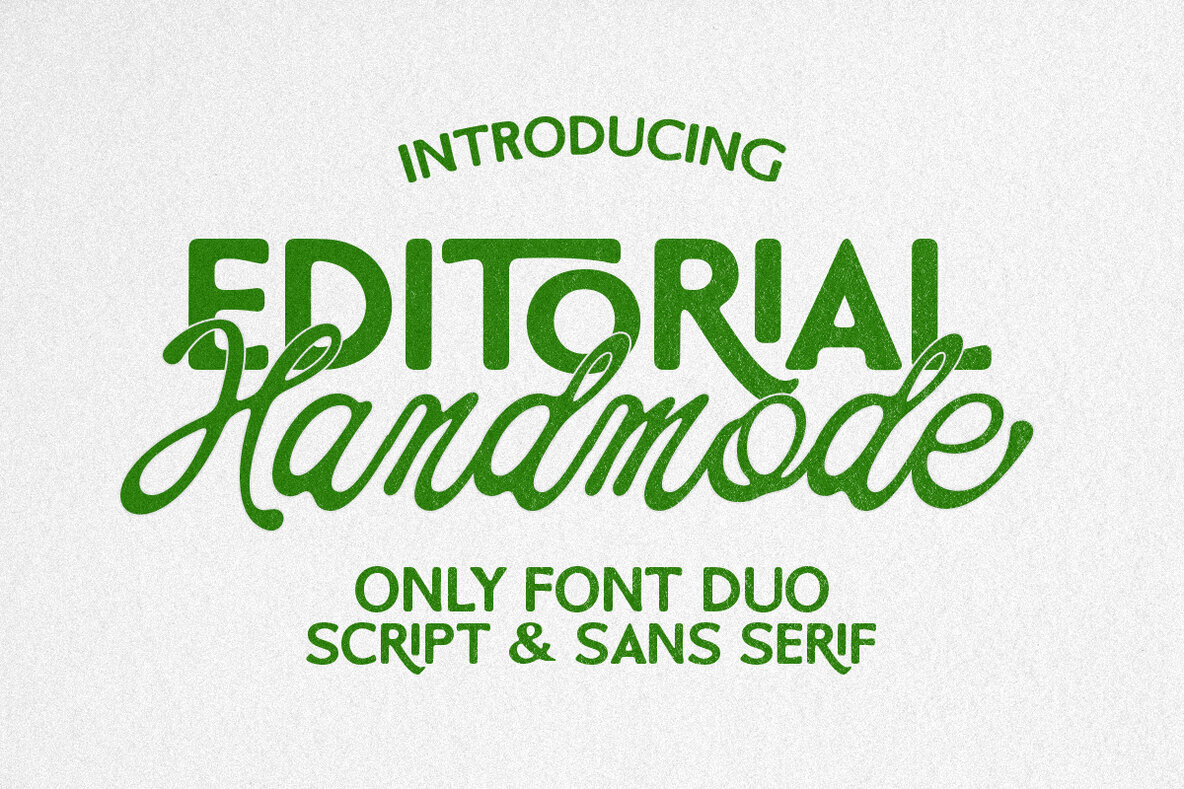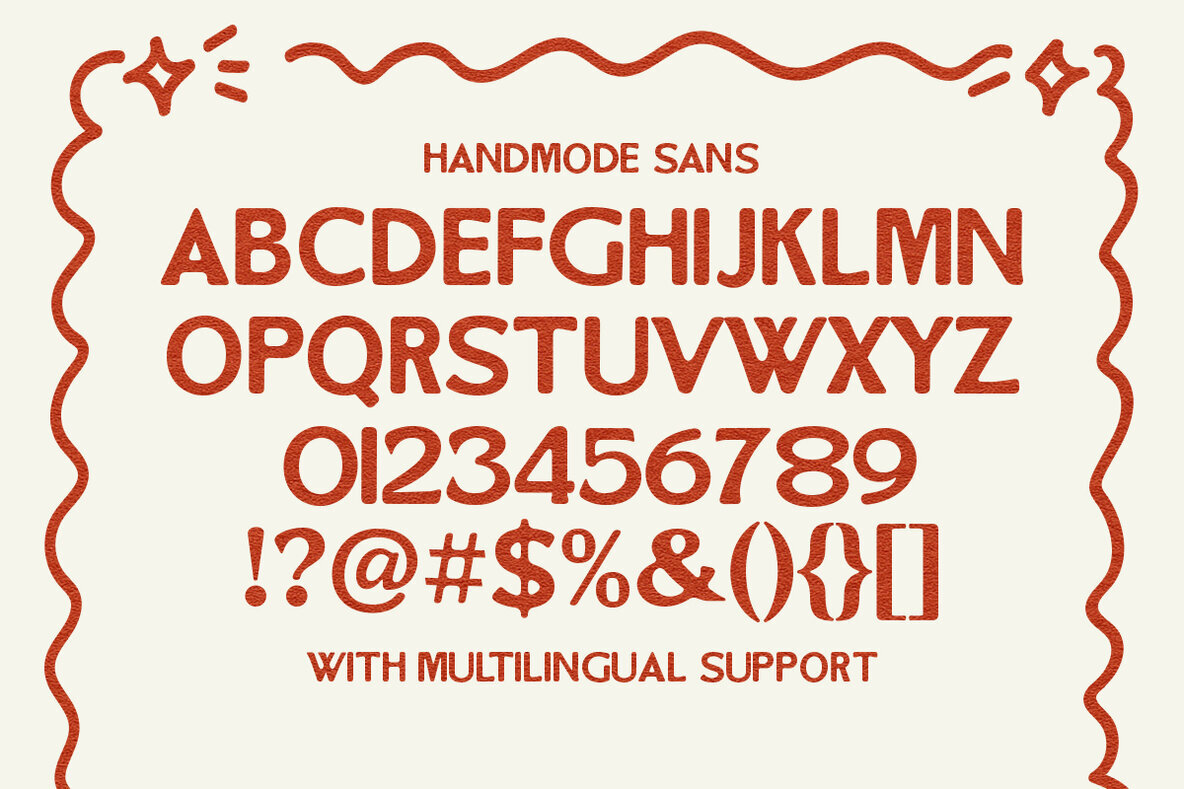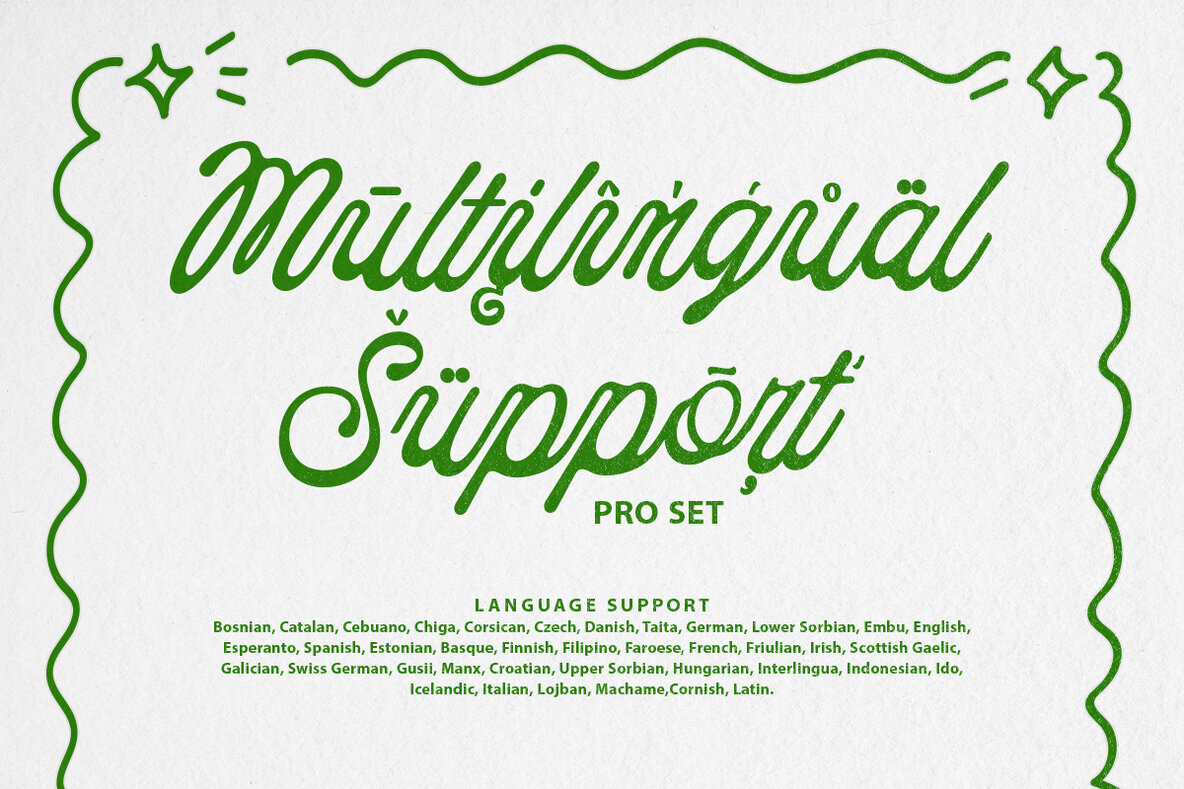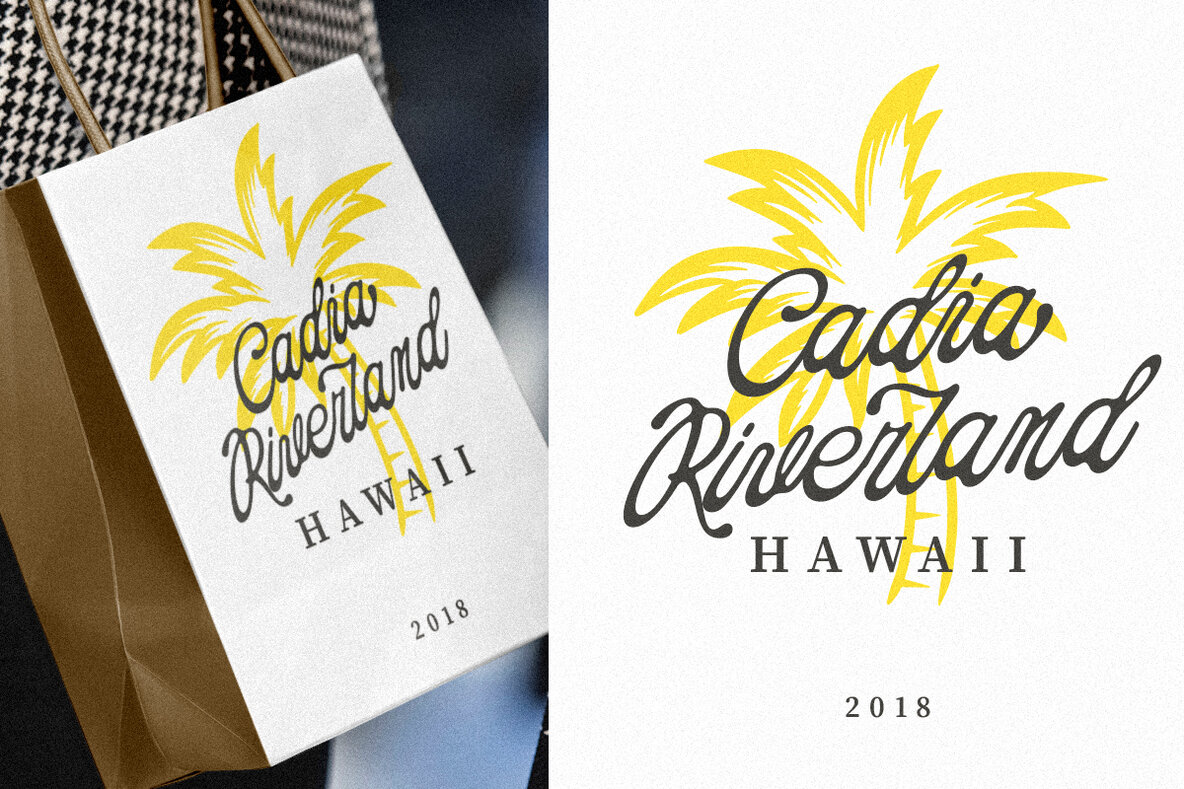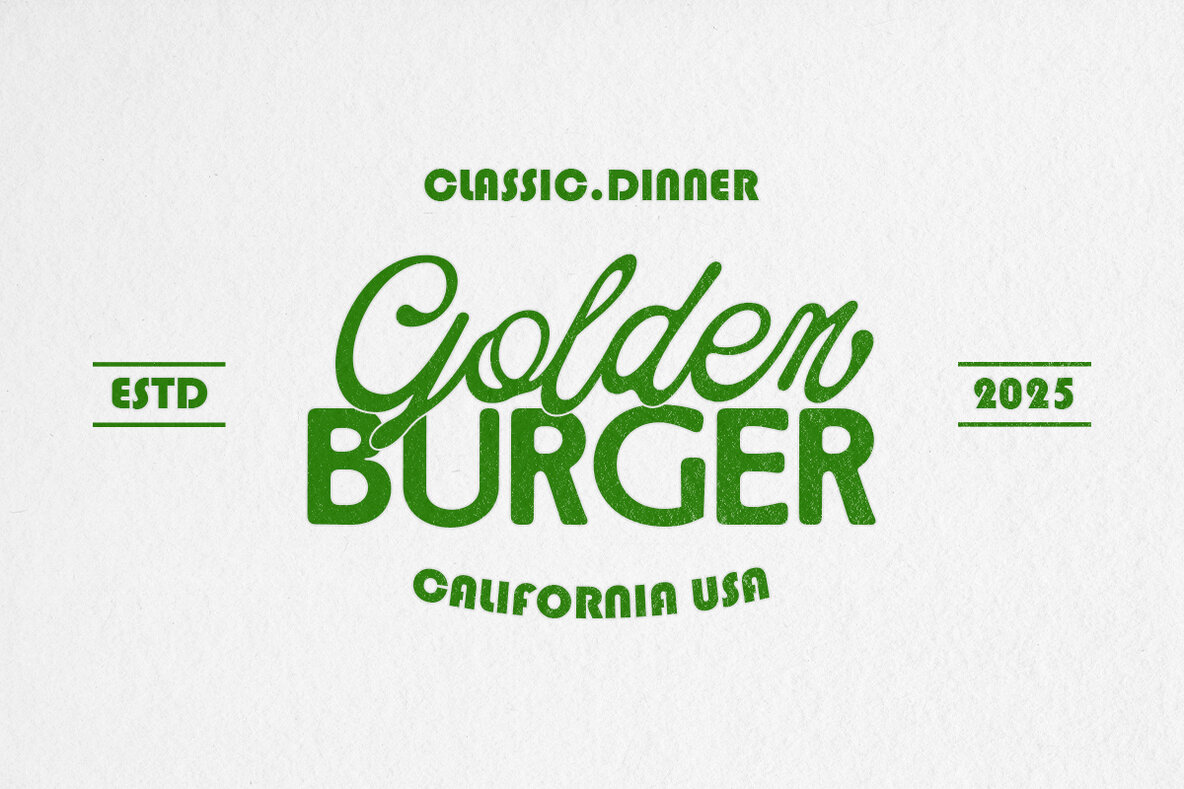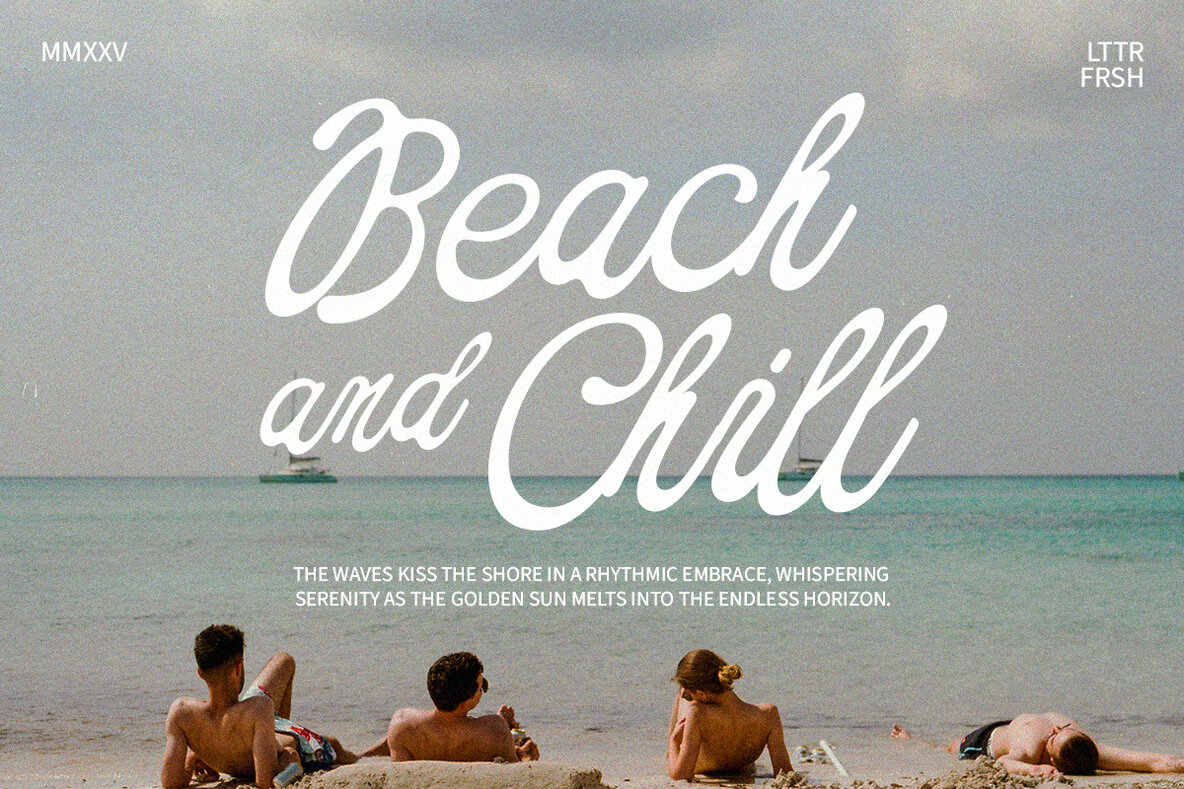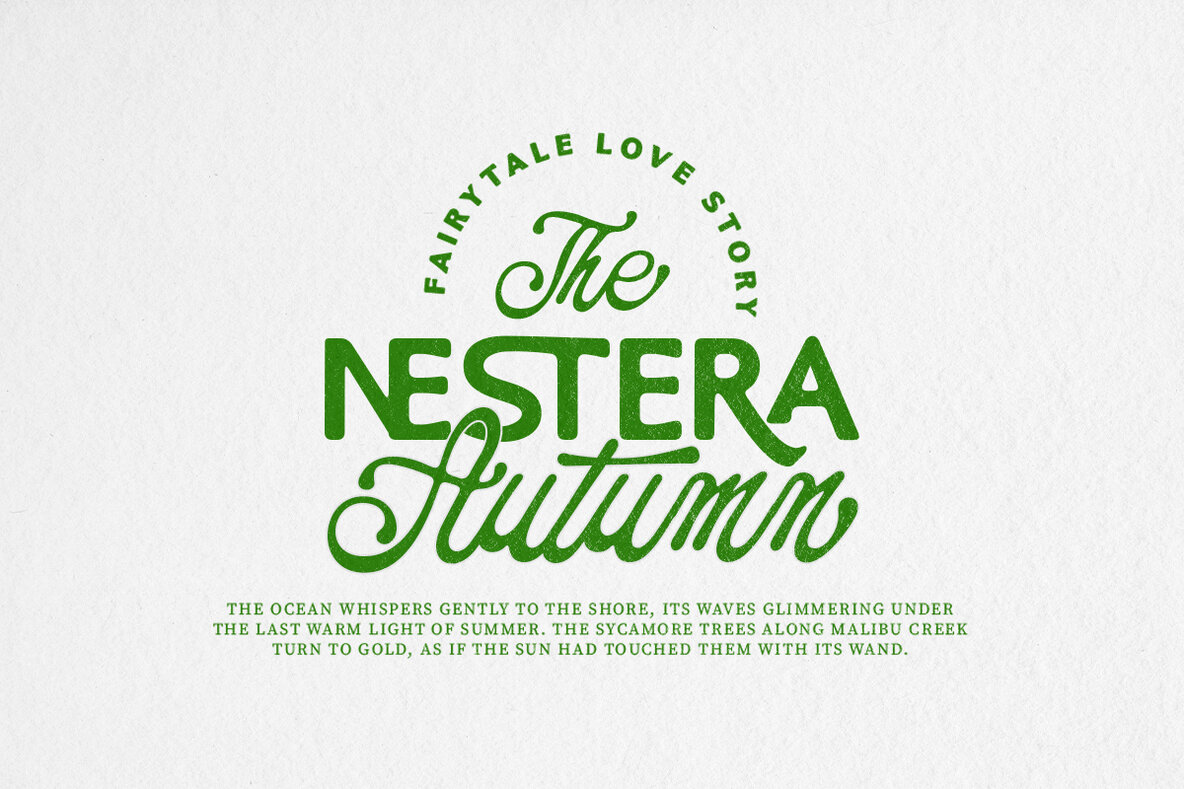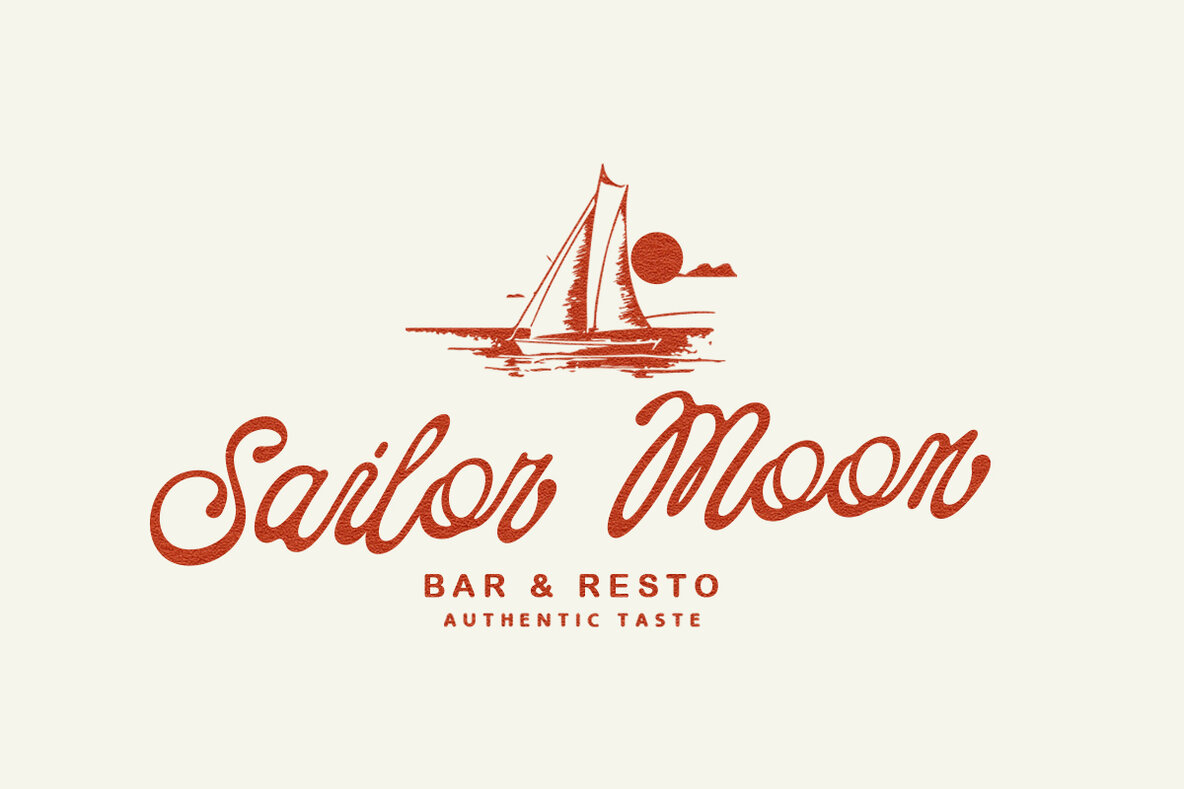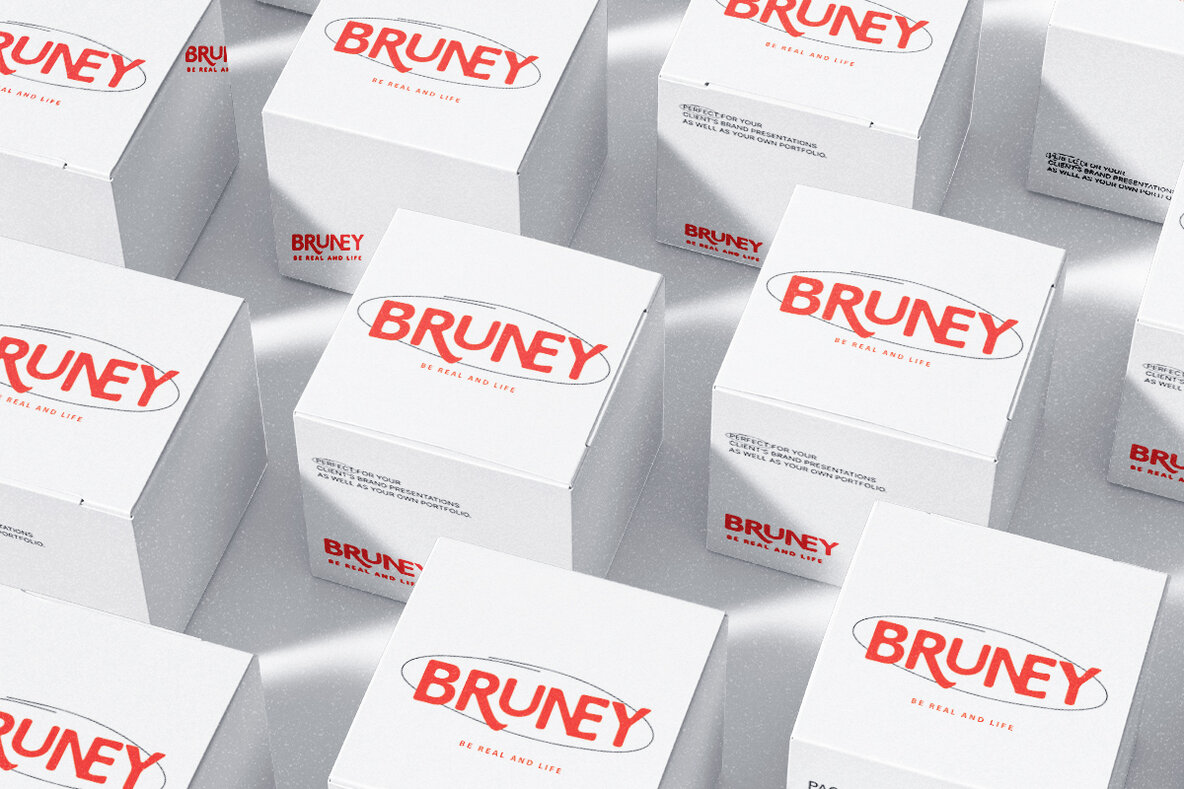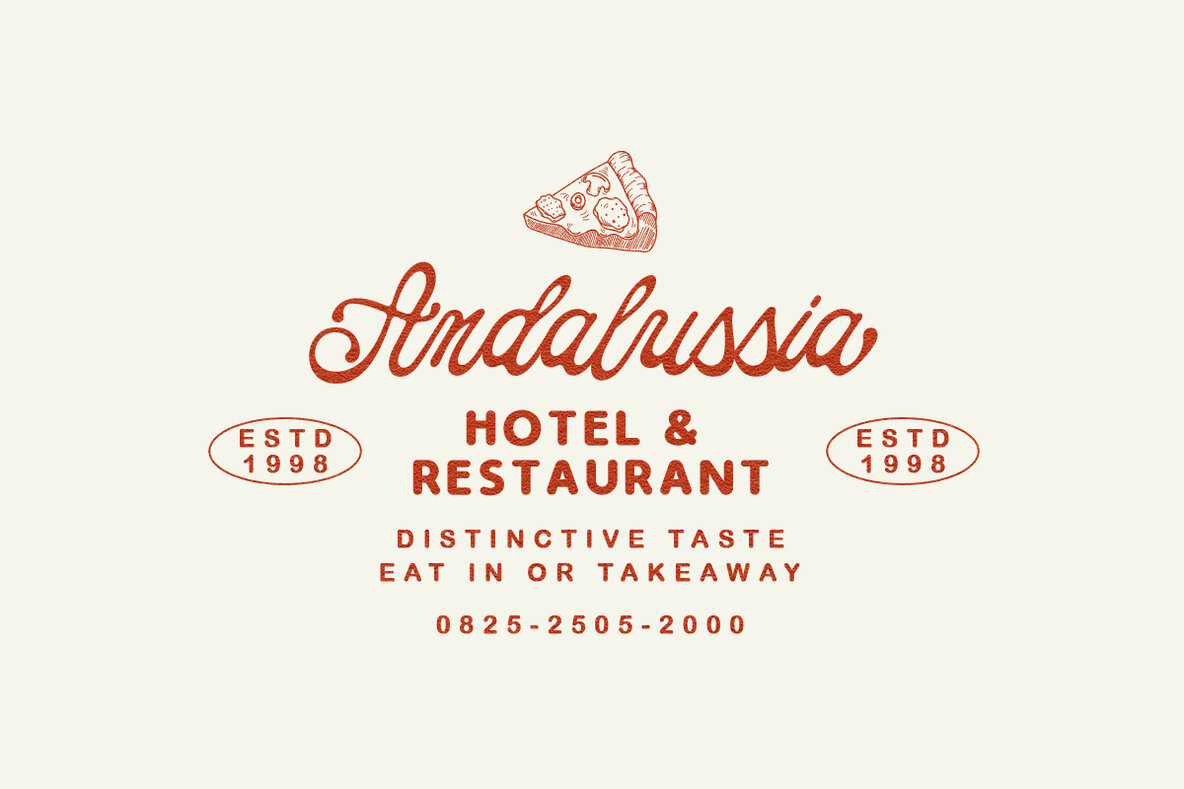
Handmode Editorial Font
Discover the charm of Handmode Editorial with its versatile font duo that includes a bold, rounded sans serif and a flowing handwritten script. This harmonious combination radiates a friendly yet bold aesthetic, making it ideal for a wide array of applications such as product labels, greeting cards, and social media posts. Whether developing branding projects or crafting logo designs, Handmode Editorial captures the essence of playfulness and professionalism. Access and Availability:Handmode Editorial: The Perfect Font Duo